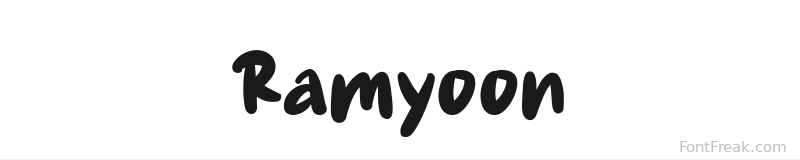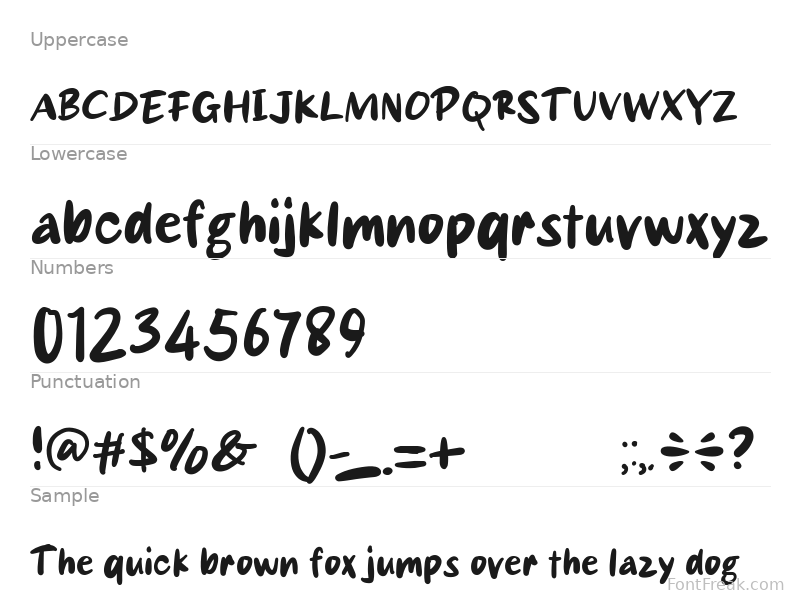
Ramyoon
About Ramyoon
Ramyoon by MJType is a captivating display font that seamlessly blends modern aesthetics with a touch of whimsy. This font features a unique style characterized by its playful curves and dynamic forms, making it stand out in a crowded typeface landscape. The stroke weight is deliberately varied, creating a lively sense of movement while maintaining legibility. Its moderate contrast and well-defined letter spacing contribute to a balanced appearance, making it suitable for various applications.
The Ramyoon font is particularly well-suited for creative projects such as wedding invitations, where its charming personality can add a personal touch. It also shines in the realm of children's book covers, where its playful nature can engage young readers. Additionally, this font can elevate branding for small cafes or restaurants, giving menus an inviting and approachable feel. Graphic designers seeking to create eye-catching posters or promotional materials will find Ramyoon to be an excellent choice, as it draws attention without overwhelming the viewer.